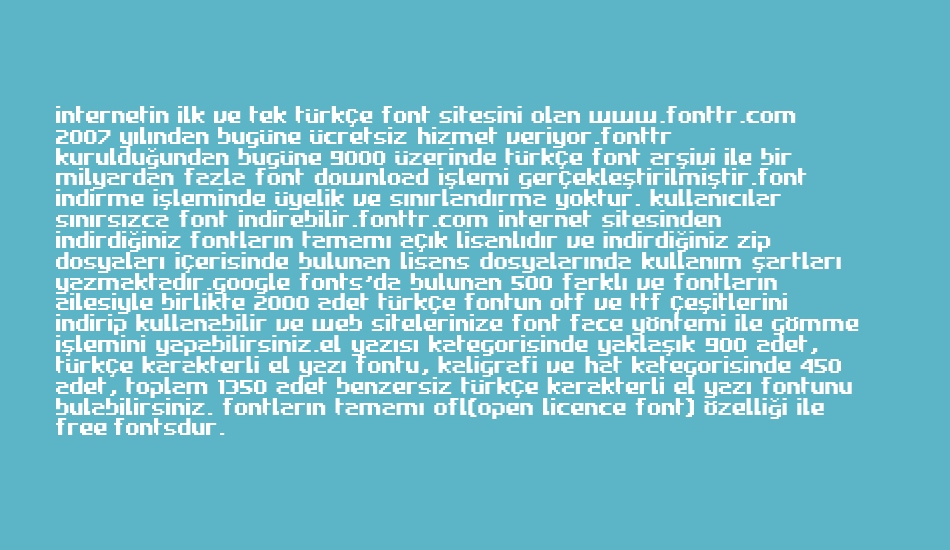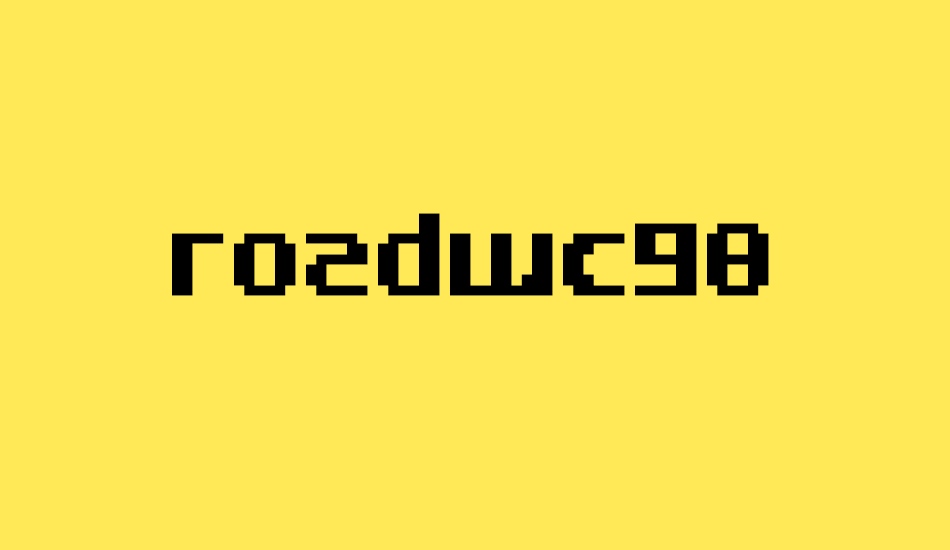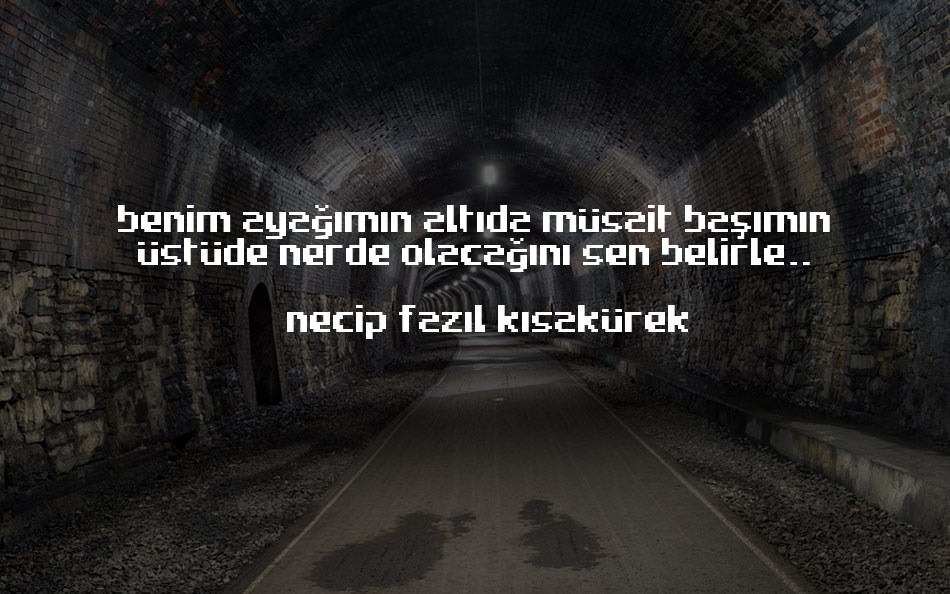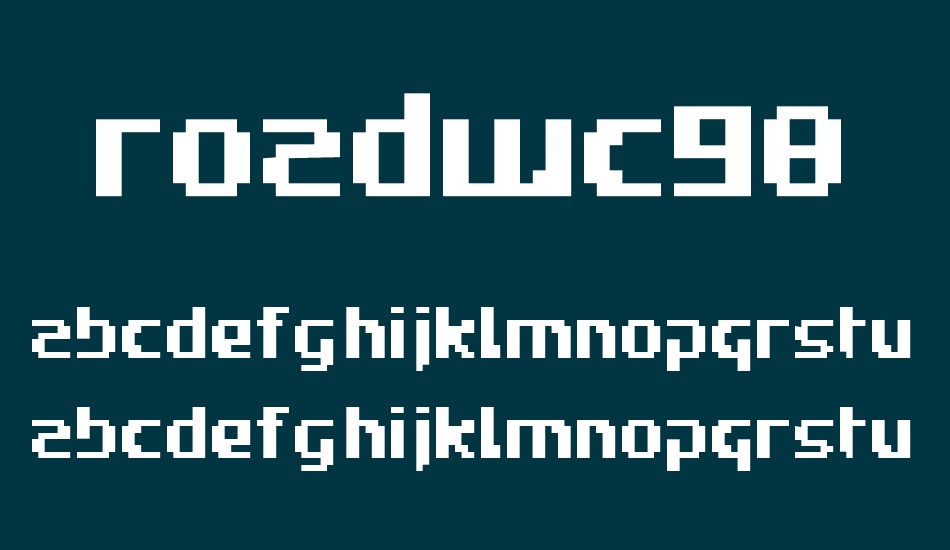
RoadWC98 font
RoadWC98 by Caveras - based on the original main text font used in the
FIFA: Road to World Cup 98 video game for the SNES (XYZ Productions/
Electronic Arts, 1997).
The font file in this archive was created by Caveras using FontStruct -
Flash. The font in this archive is a pixel font and best displayed at a
font-size of 16 and multiples of this number.